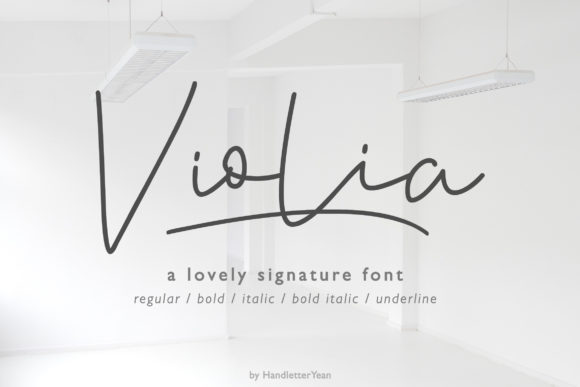
Step into the enchanting world of Violia Font, a graceful script font that will dance across your designs with elegance and allure. Experience the charm of handwritten artistry, meticulously crafted to capture the essence of authenticity. With Violia Font, your creations will radiate a timeless sophistication that will captivate and inspire.
Indulge in the versatility of Violia Font. It seamlessly adapts to a multitude of design concepts, effortlessly enhancing logos, branding materials, invitations, greeting cards, social media posts, and countless other projects. Let Violia Font elevate your designs to new heights, adding a touch of magic that will leave a lasting impression.
Unleash your creativity with Violia Font, a font that speaks volumes without uttering a single word. Its beautifully flowing characters create a visual symphony, guiding the reader's eyes through your designs with grace and poise. Embrace the power of expression with Violia Font, and let your designs tell stories that resonate with your audience.
With Violia Font, you're not just downloading a font; you're inviting an artistic masterpiece into your design toolbox. Each letter is a work of art, lovingly crafted to embody the essence of elegance and charm. Experience the satisfaction of creating designs that exude professionalism and creativity, all thanks to the magic of Violia Font.